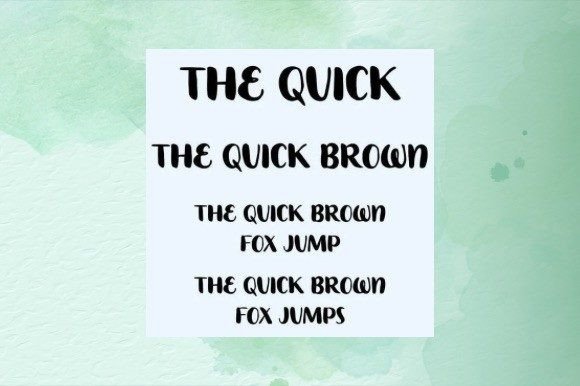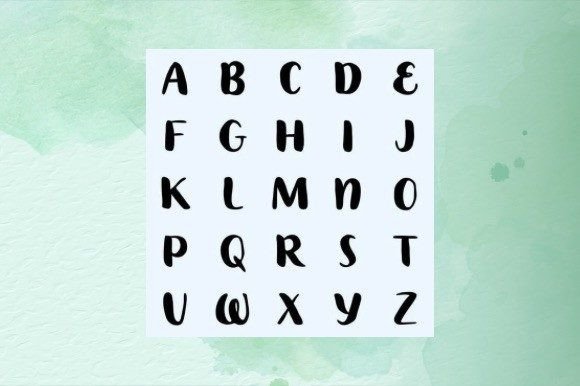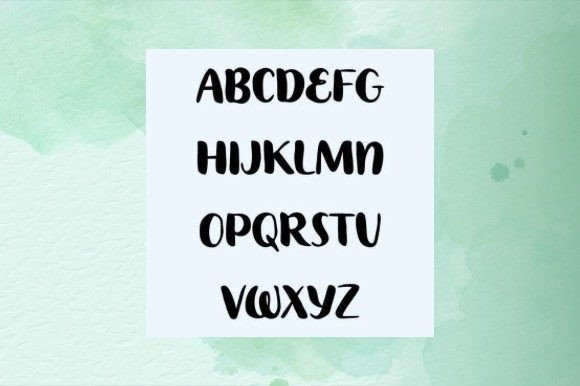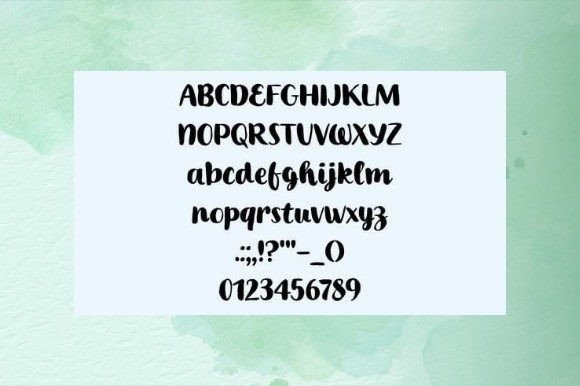
Introduction to Sn Dio Font
Imagine yourself in the middle of a creative project, brainstorming ideas and searching for the perfect design element to elevate your vision. You stumble upon a font that not only captures your attention but also resonates with your artistic style. This is exactly what happens when you discover the beautiful Sn Dio Font.
With its adaptable and gorgeous visual charm, the Sn Dio Font is a valuable resource for designers seeking to enhance their creative projects. Its high-quality design makes it an excellent choice for those looking for a free download that won’t compromise on aesthetic appeal. Whether you’re working on a graphic design project or need a design element with a transparent background, the Sn Dio Font is sure to impress.
Key Features of Sn Dio Font
- High-quality font design with transparent background, ideal for creative projects that require a clean and minimalist look.
- Designed with a modern aesthetic, making it perfect for use in logos, branding, and other design elements.
- Perfect for designers working on creative projects, such as graphic design, web design, and digital art, where a high-quality font is essential.
Honest Review: Sn Dio Font
I recently stumbled upon the Sn Dio Font, a free download that caught my eye due to its unique design style. At first glance, the font’s high quality and crisp lines make it an attractive addition to any creative project.
Here are some things that work well: ✨
- Clear and readable font even at smaller sizes
- Perfect for use in digital designs such as graphics and web pages
- Has a transparent background, allowing for easy layering and compositing
However, there are some limitations to consider: ⚠️
- Limited character set and support for special characters
Overall, I was impressed with the Sn Dio Font’s unique style and high quality. It’s a great design resource for personal projects or small-scale creative endeavors. However, if you’re looking for a font for commercial use or need more comprehensive character support, you may want to look elsewhere.
Tips for Getting the Most Out of Sn Dio Font
For the best results, use Sn Dio Font in conjunction with a transparent background. This will allow your text to stand out and add a professional touch to your design.
Sn Dio Font is perfect for creative projects, such as logos, brochures, and social media graphics. It’s also great for use in presentations and documents where a high-quality, easy-to-read font is needed.